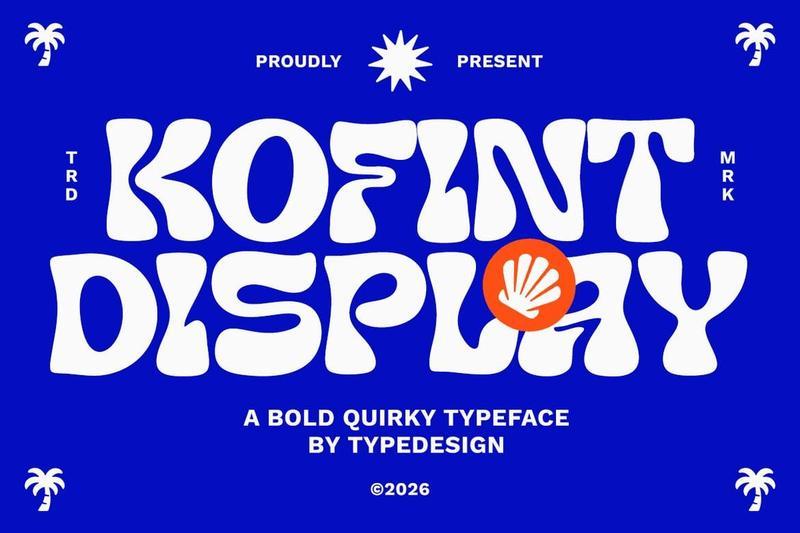
Kofint Display Bold Quirky Retro Font Y866PYV
**Kofint Display** is a bold and expressive typeface inspired by psychedelic visuals, groovy aesthetics, and playful retro culture. Its chunky letterforms, flowing contours, and handcrafted personality make every design feel energetic, fun, and unforgettable.
* Perfect for posters, album covers, and event promotions
* Delivers strong visual impact with unique character shapes
* Adds a nostalgic seventies-inspired atmosphere to creative projects
* Ideal for branding, packaging, social media, and merchandise
Designed to stand out in large headlines and creative compositions, this typeface brings warmth, personality, and retro flair to any project while maintaining excellent readability and artistic appeal.